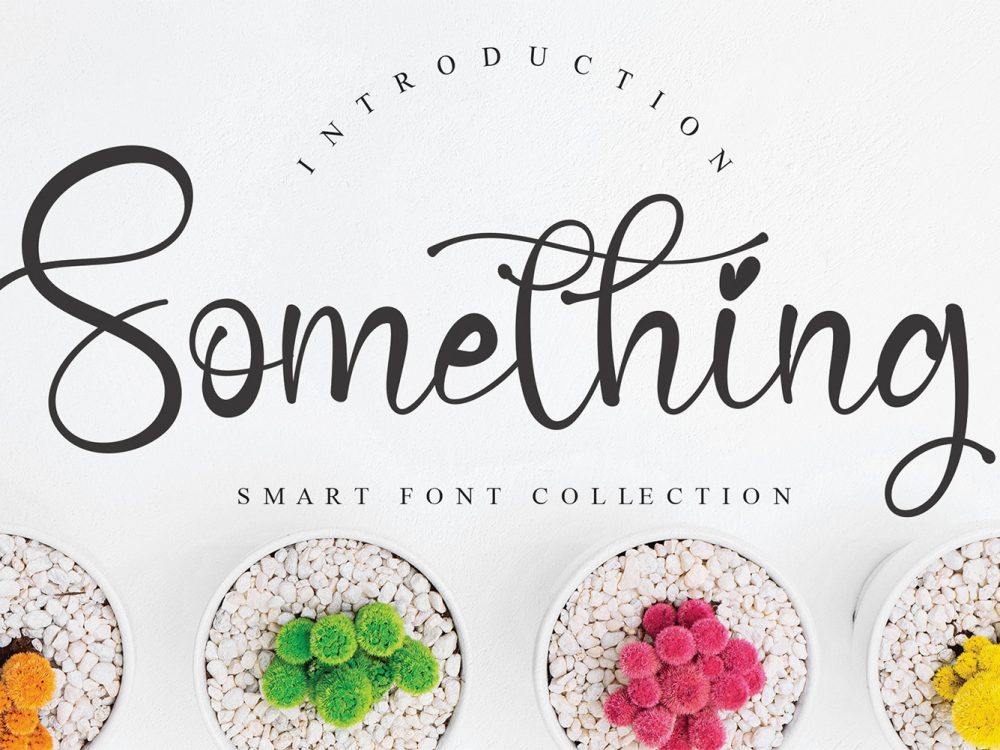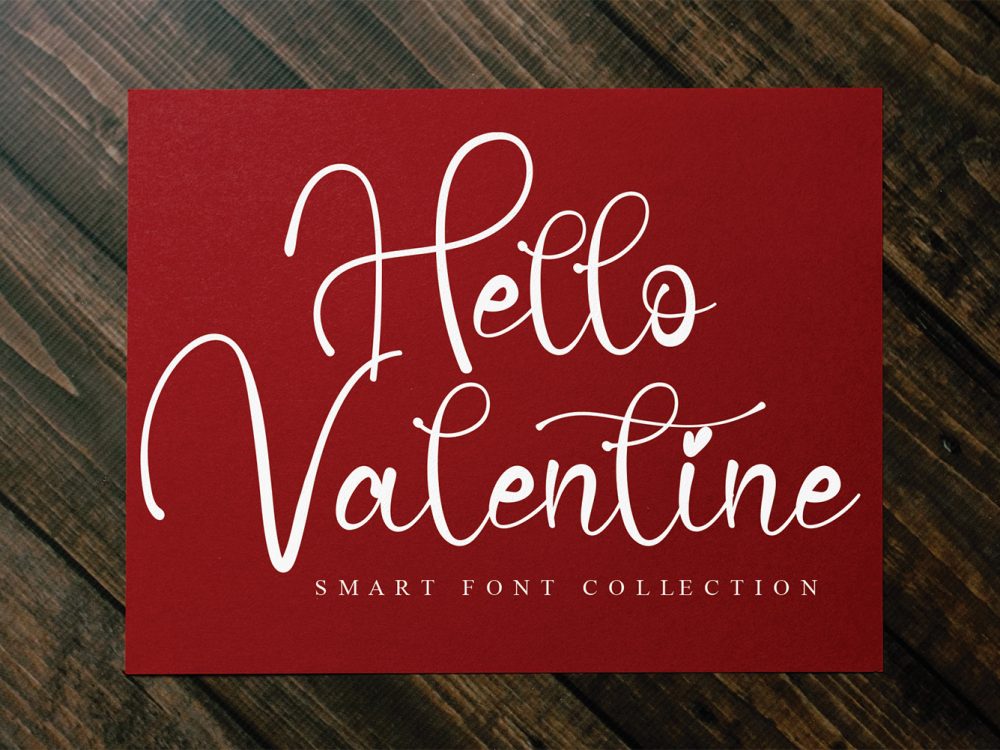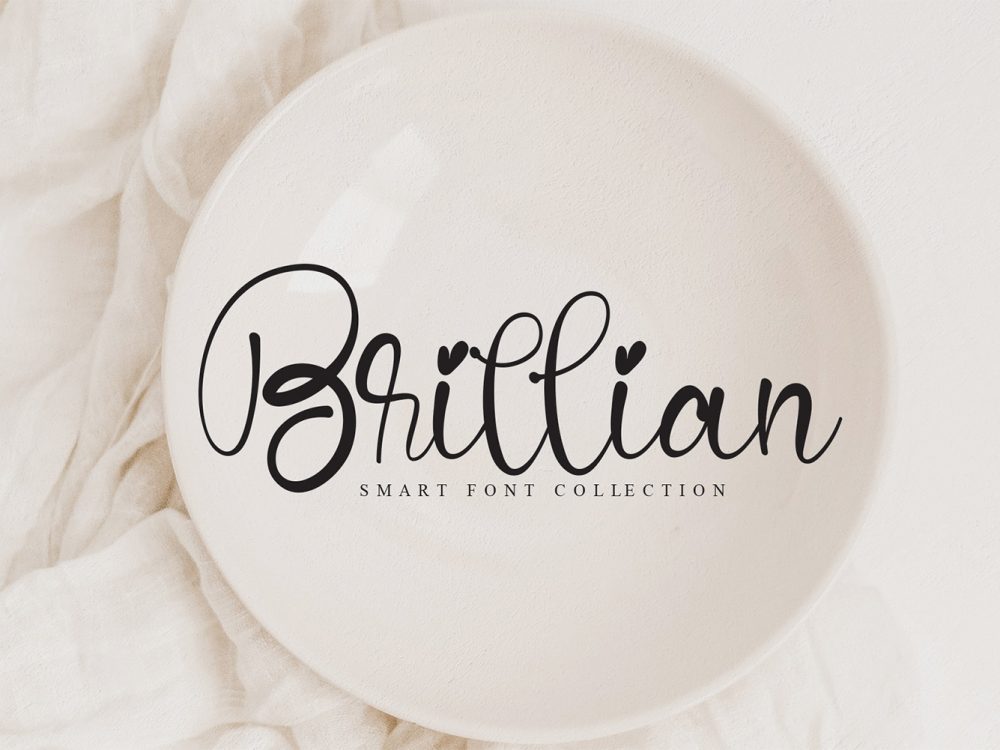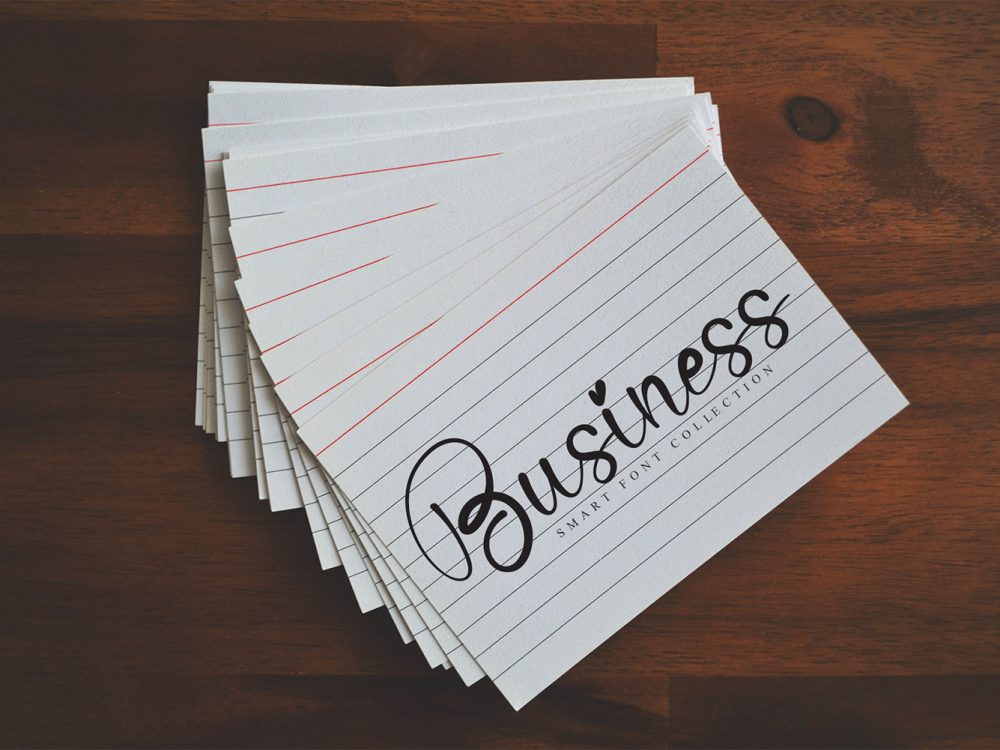
Something Free Font
Something Free Font is an interesting elegant handwritten font that features a modern calligraphic style among other fonts. This font is very well suited for various projects that require a scripted modern curly handwritten font. Use this font to create branding projects, logos, wedding designs, social media posts, advertisements, product packaging, product designs, label, photography, watermark, invitation, stationery, and more. If you like it don’t forget to check out the full version.